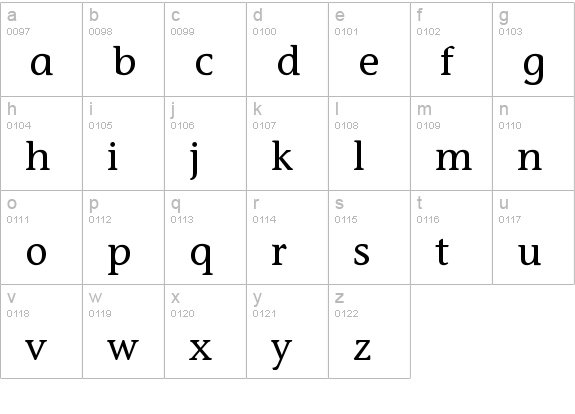
Stone Informal Medium is a balanced, medium-weight variant in the Stone typeface family \xE2\x80\x94 well suited to sub-headlines, navigation, and balanced editorial work.
Stone Informal Medium is a versatile and stylish font that exudes a sense of casual elegance. Its smooth curves and gentle strokes give off a warm and inviting feel, making it perfect for a wide range of design projects. Whether you're creating a modern logo, crafting a sleek website, or designing eye-catching posters, this font will add a touch of sophistication to your work. The best part? Stone Informal Medium is available for free download at FontsMarket.com. You can easily access this high-quality font and incorporate it into your projects without any hassle. Don't miss out on the opportunity to enhance your designs with the timeless charm of Stone Informal Medium. Download it today and elevate your creative endeavors to new heights.